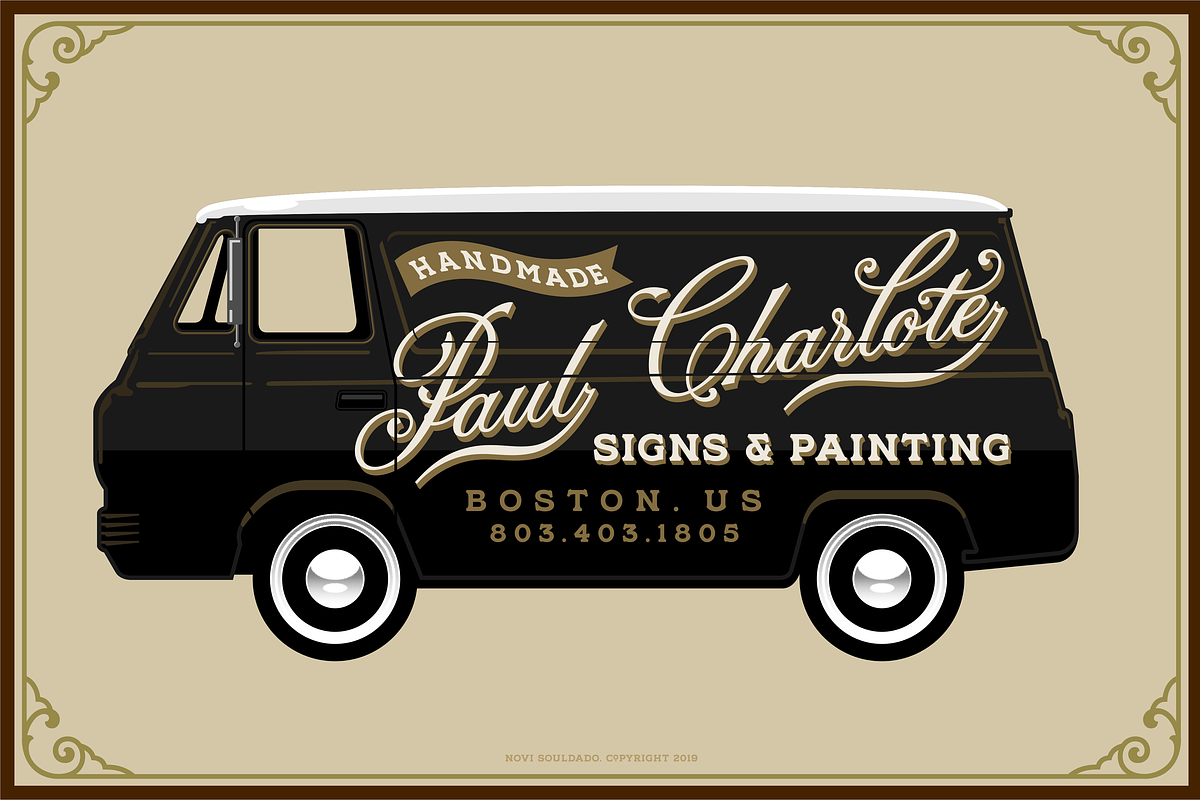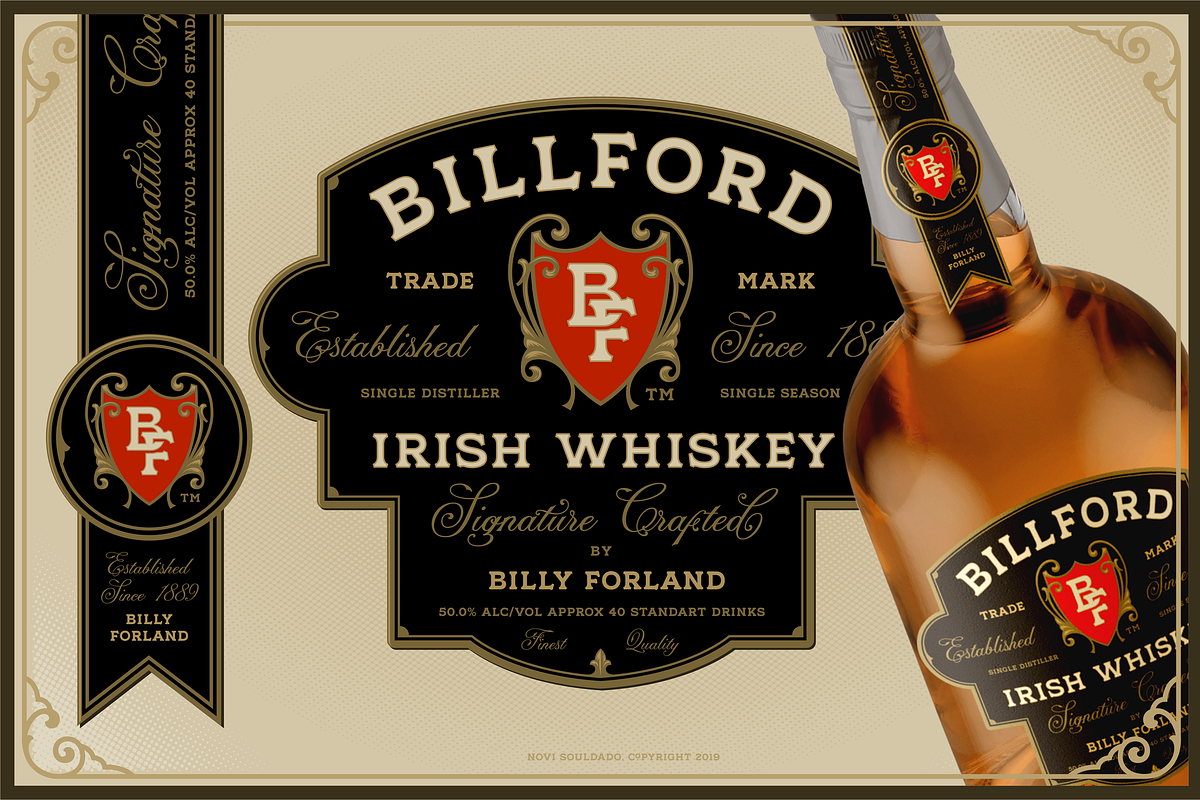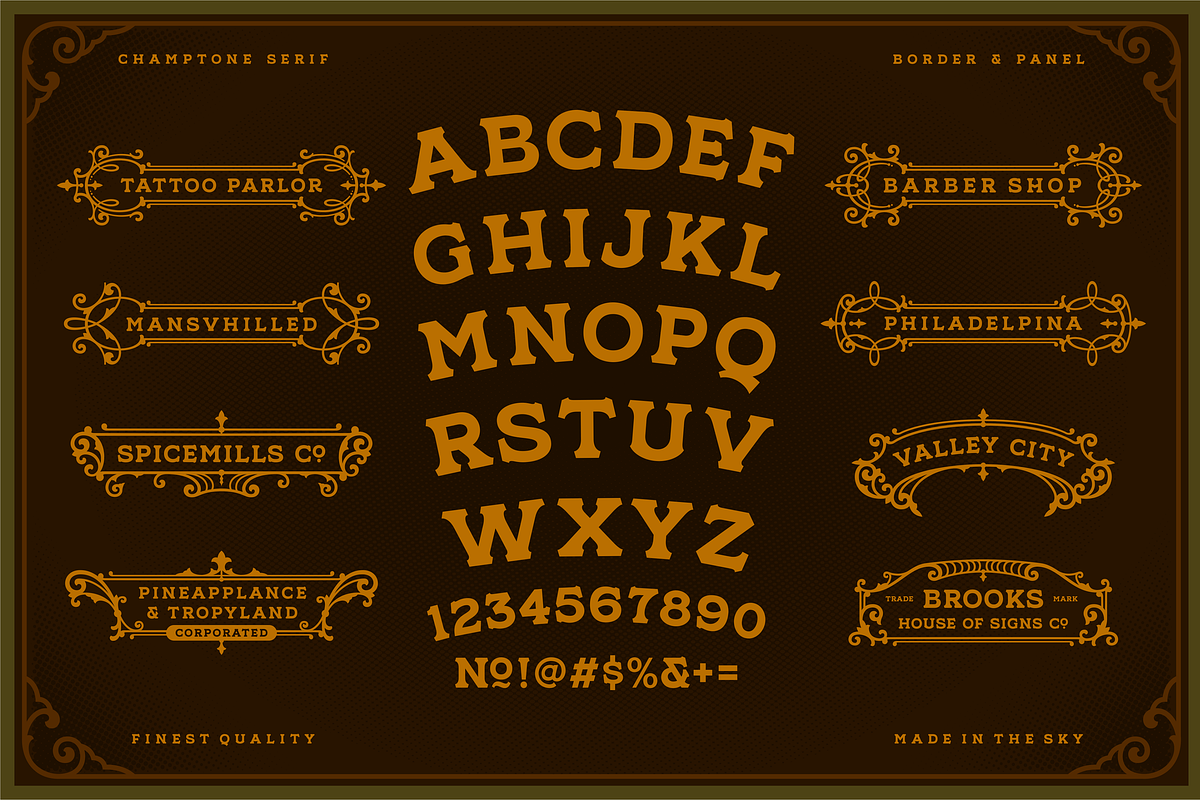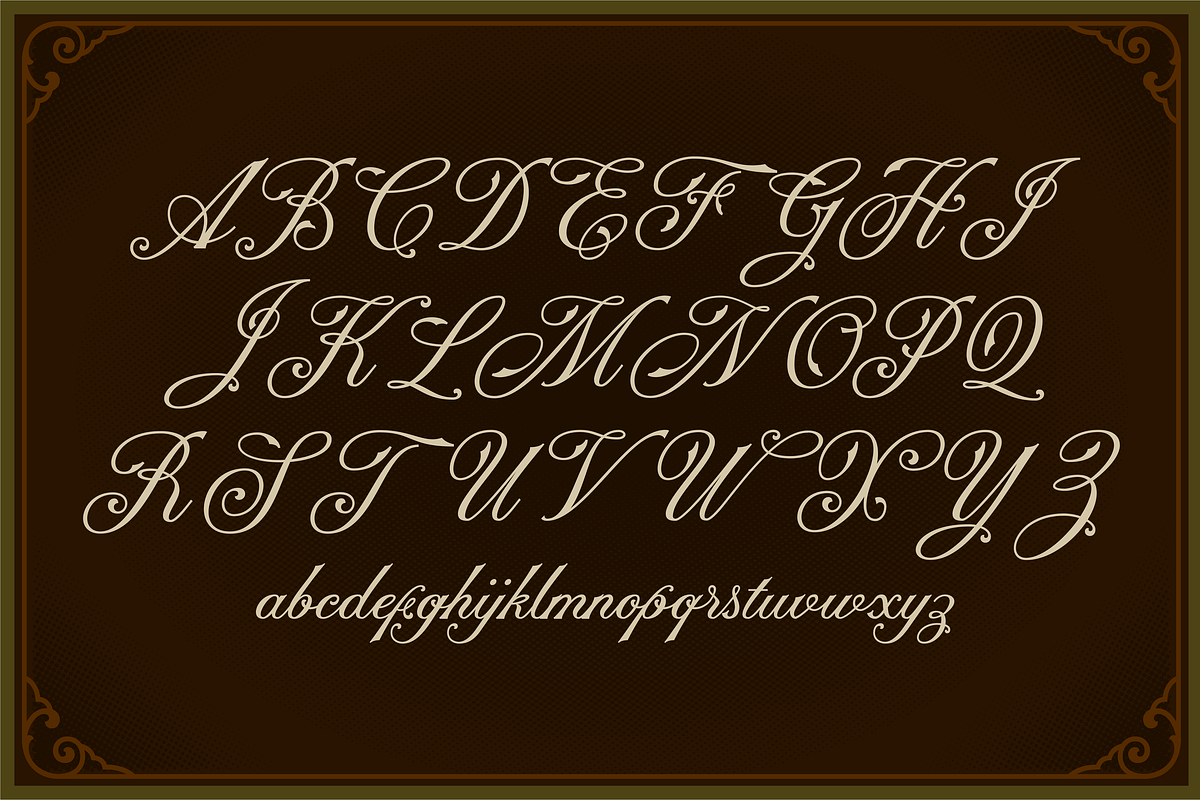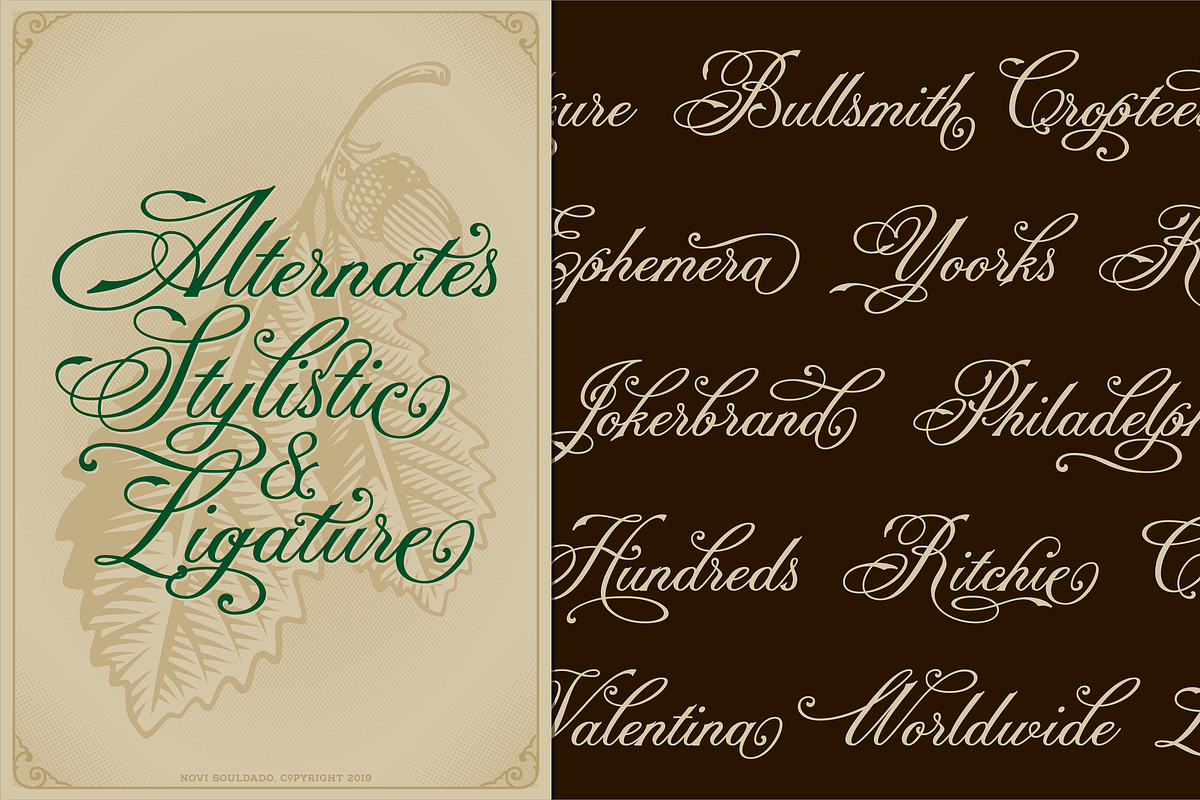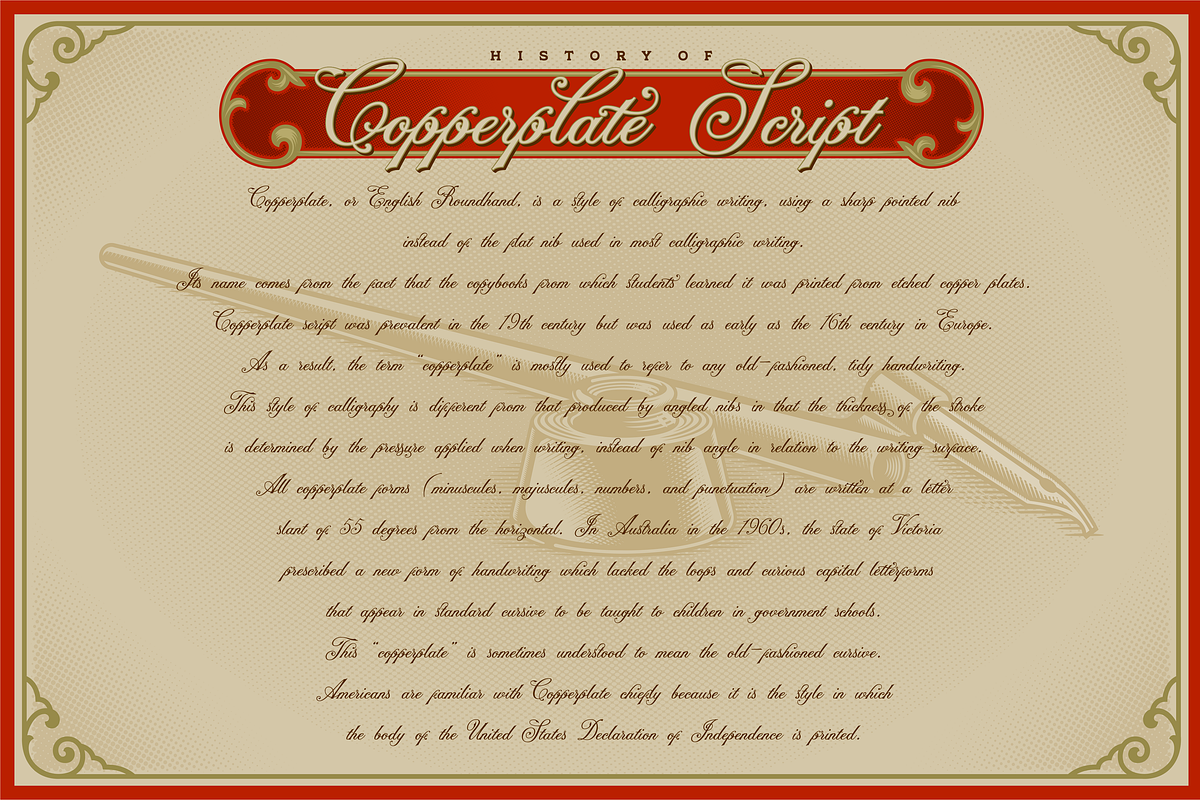
NS CHAMPTONE Fonts Collection
NS Champtone Fonts Collection
Champtone Font is inspired by the aesthetics of Copperplate Script, Sign and vintage style labels. Comes with two font collections, extras swashes, ornament borders, panels, ligatures and stylistic alternates . Makes it ideal and perfect for creating a design piece inspired by letterheads, posters, signage, charters, labels, packaging, logotypes, etc.
UPDATE : NS Champtone Script Pro
100+ Stylistic Alternate
Standard & Discretionary Ligatures
- Comes with two font collections, extras swashes, ornament borders, panels, ligatures and stylistic alternates .
- UPDATE : NS Champtone Script Pro what you get : 100+ Stylistic Alternate Standard & Discretionary Ligatures Uppercase & Lowercase Numerals &
- NS Champtone Extras Regular
- NS Champtone Script NS Champtone Script
- NS Champtone Serif NS Champtone Serif